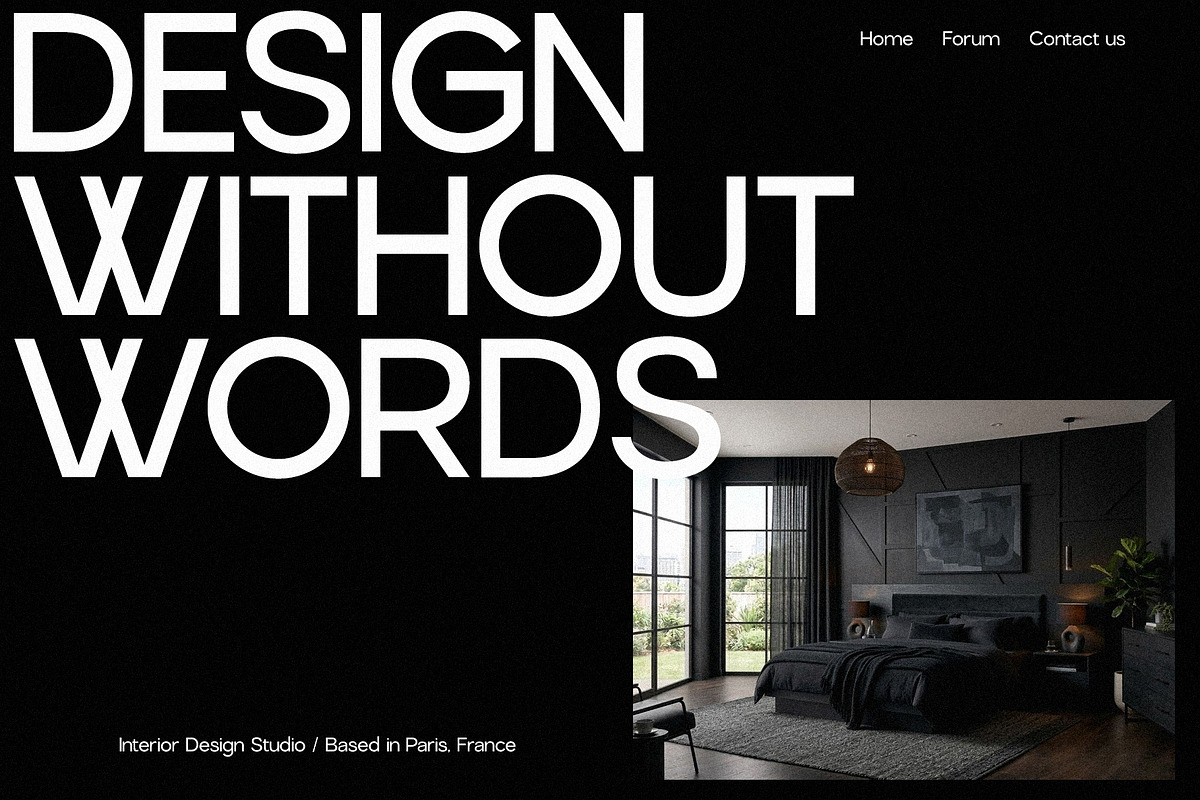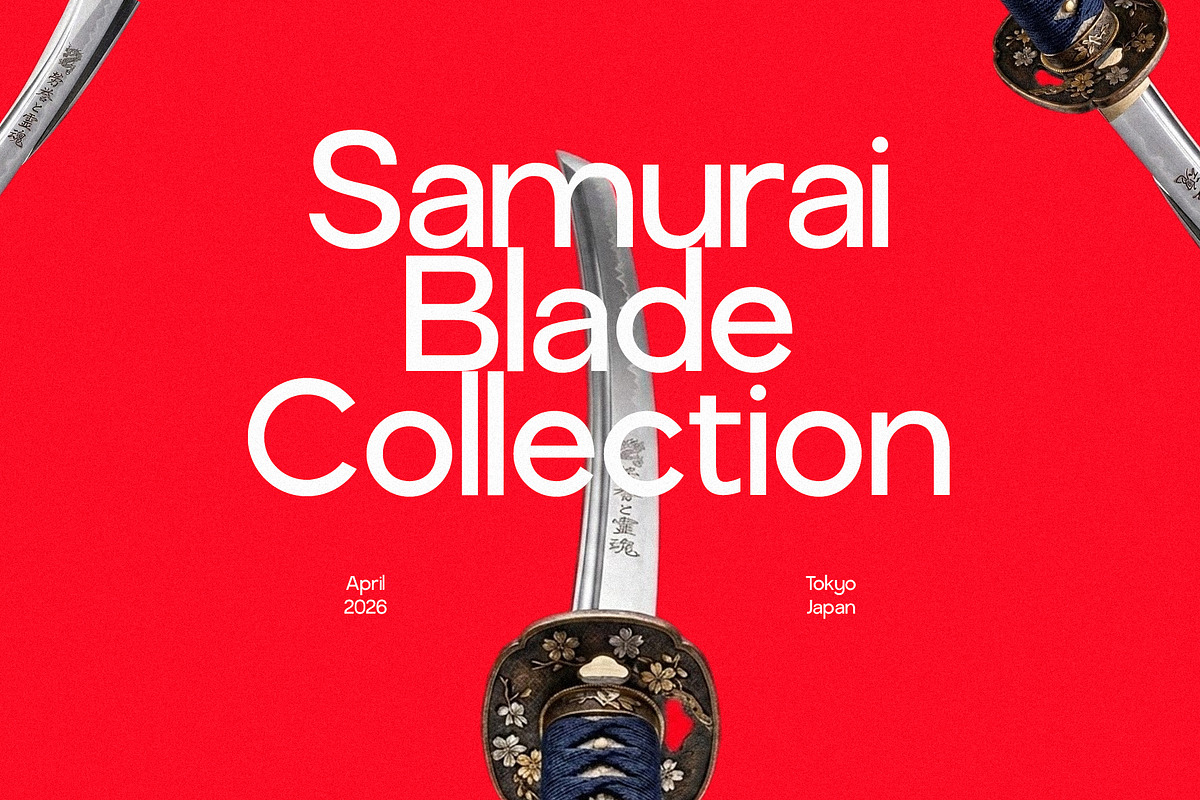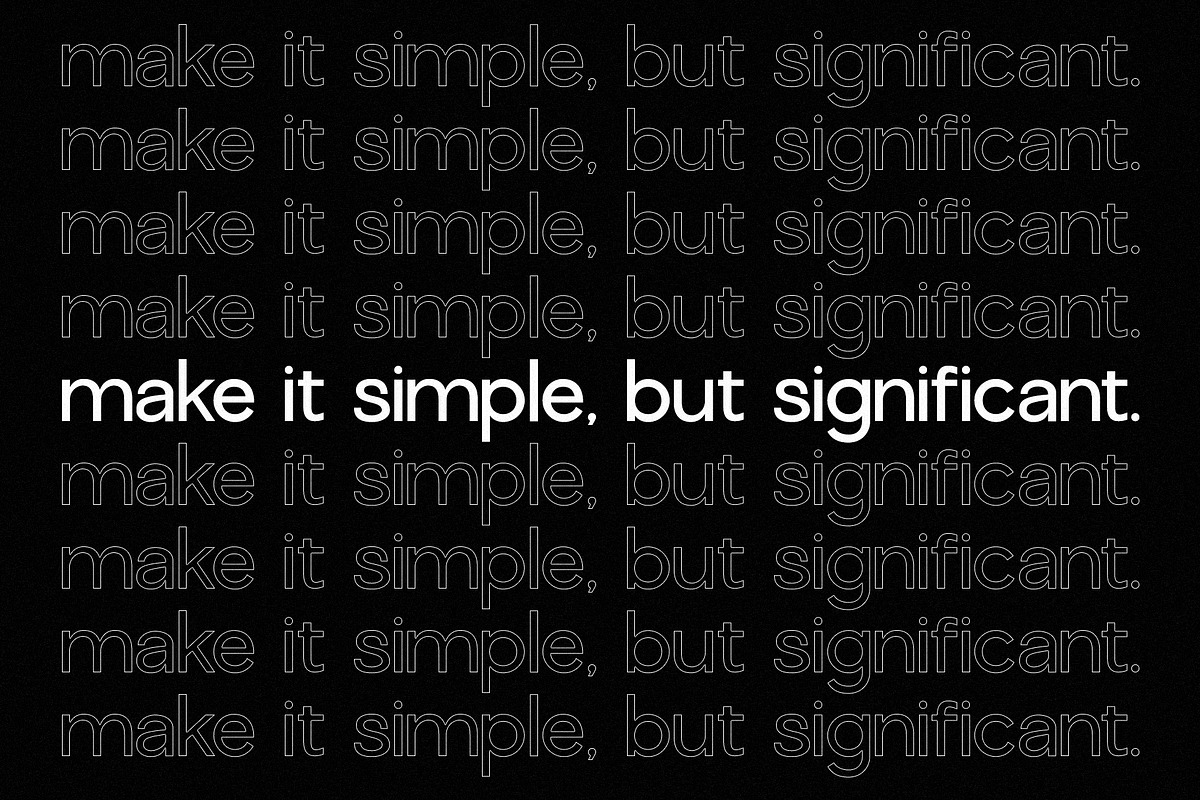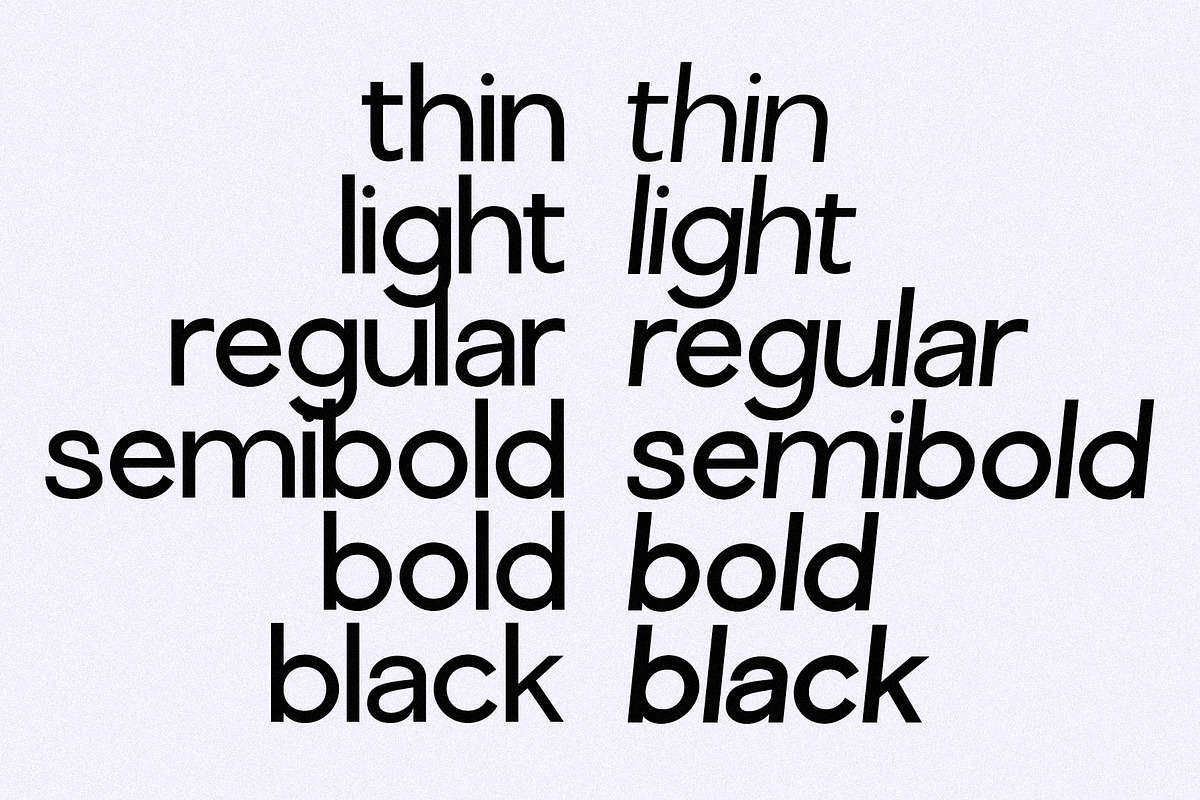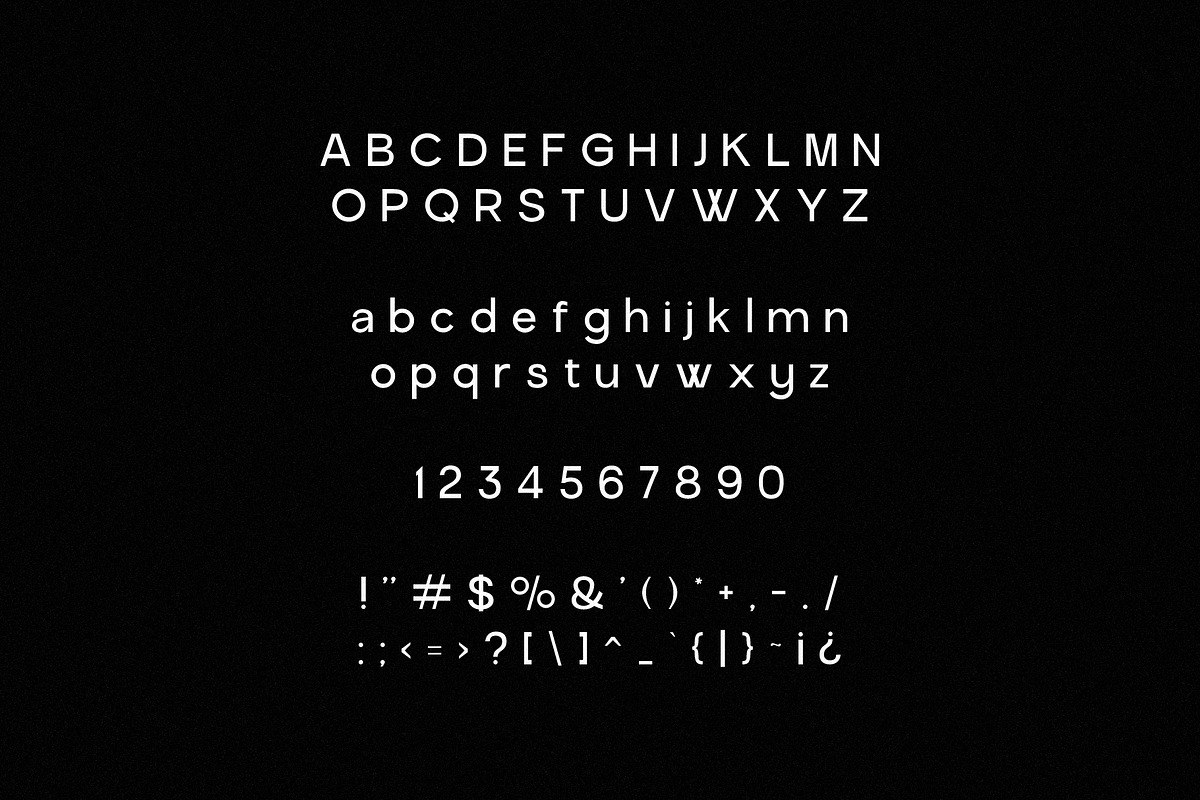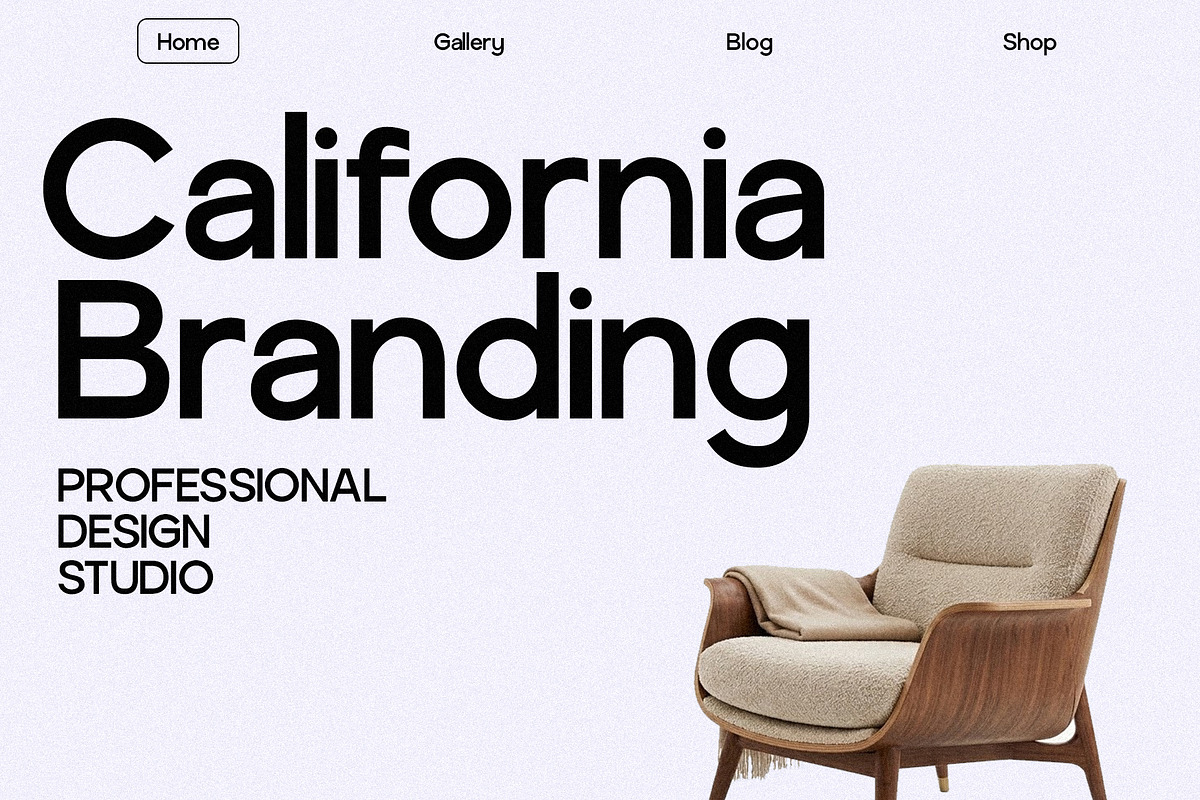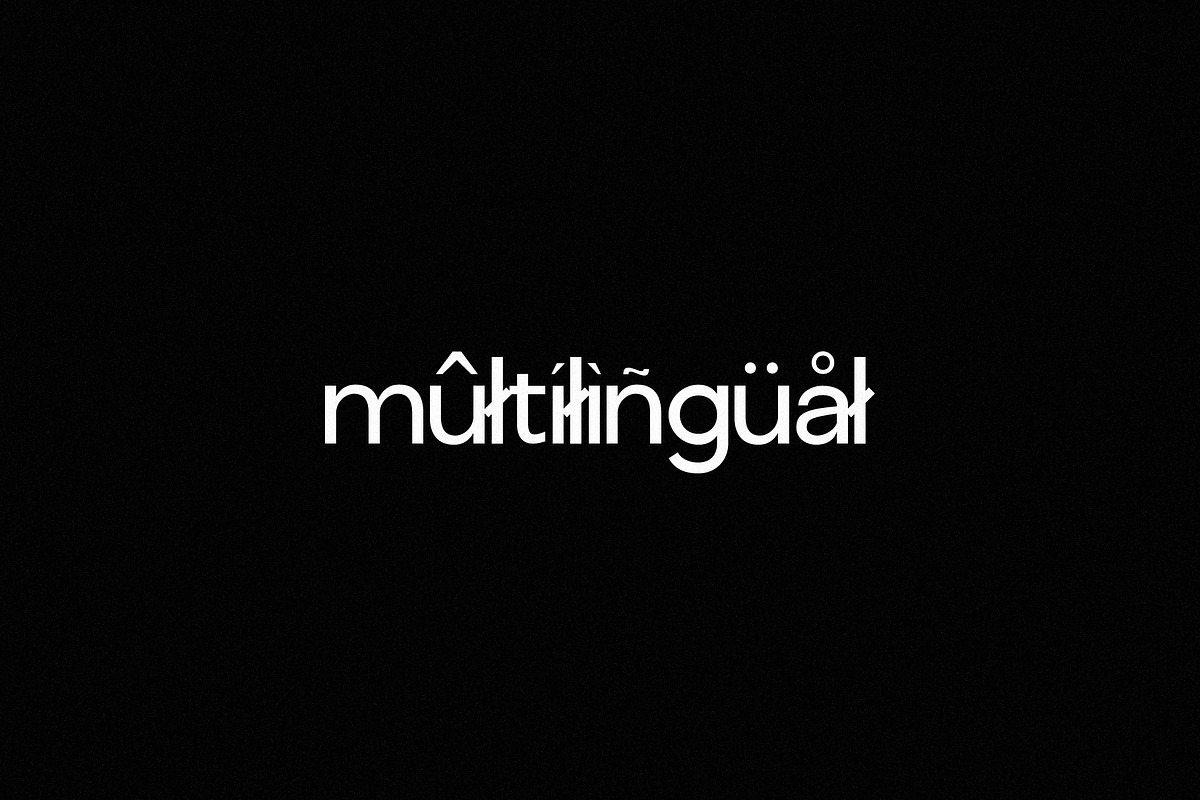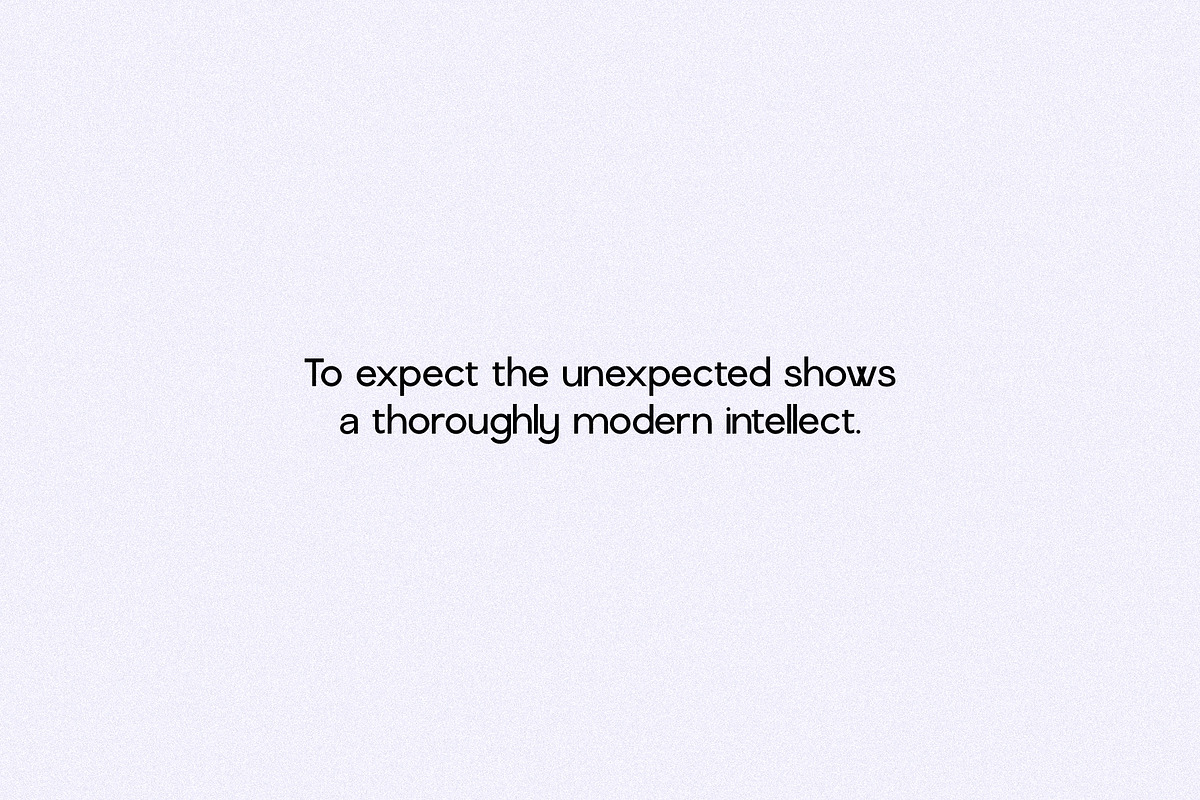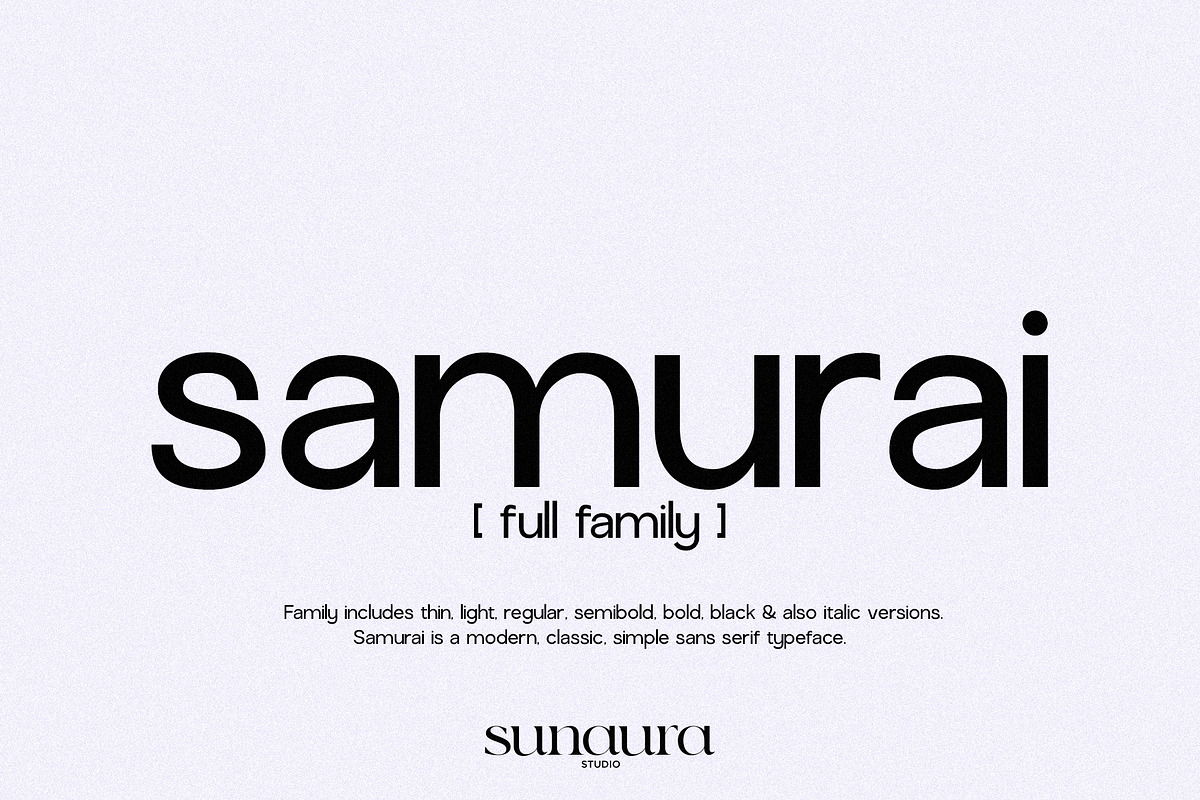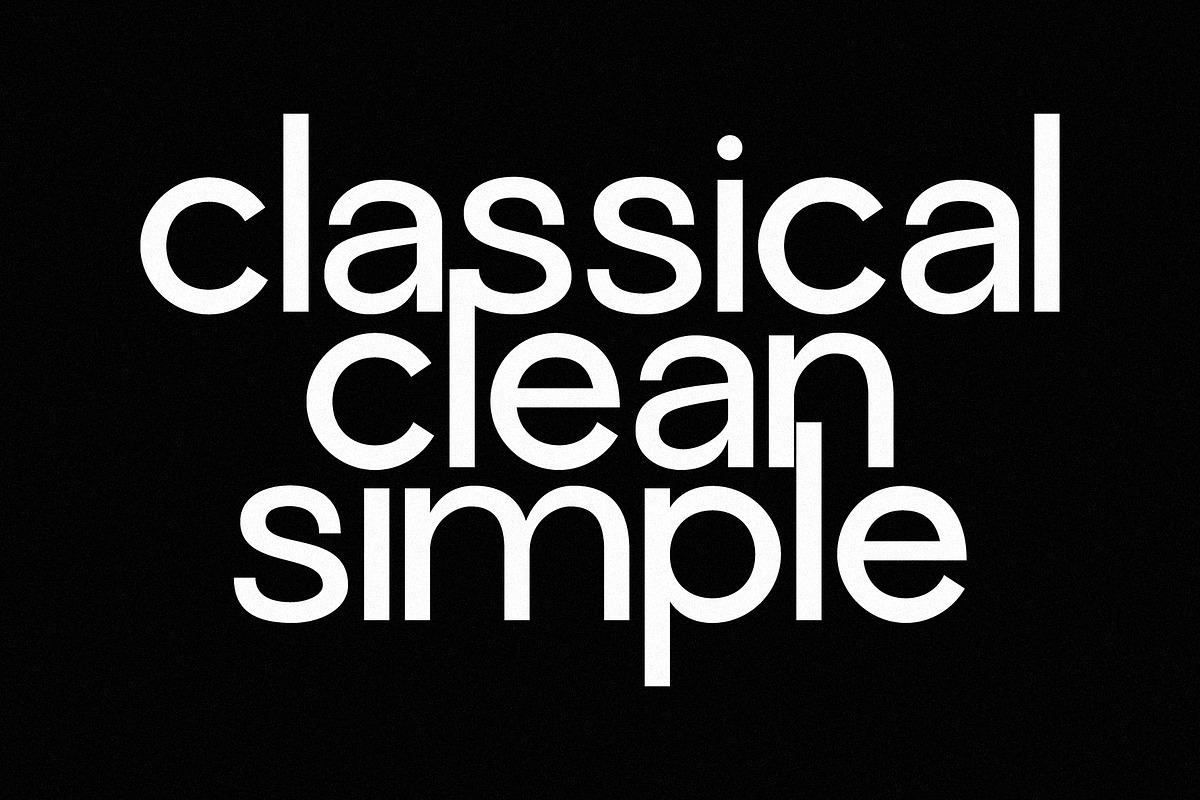
Samurai Family Pack (12 Fonts)
Samurai Family expands the spirit of the original Samurai typeface into a complete and versatile type system. Inspired by precision, discipline, and quiet strength, this modern sans serif blends clean geometry with sharp detailing to create a bold yet balanced presence. The family now includes Thin, Light, Regular, Semibold, Bold, and Black weights, each with matching Italic styles, offering a full spectrum of expression - from delicate minimalism to powerful visual impact. Designed for flexibility, Samurai adapts seamlessly across branding, editorial design, digital interfaces, and bold display work while maintaining its distinctive, disciplined character.